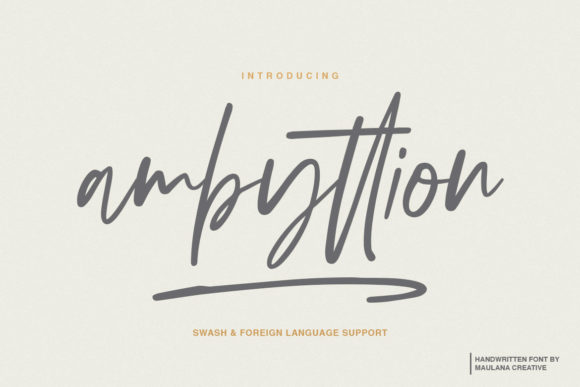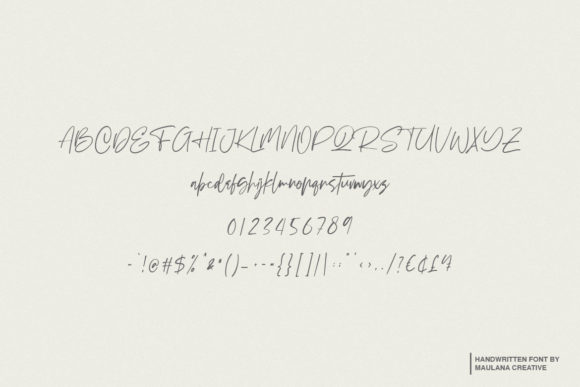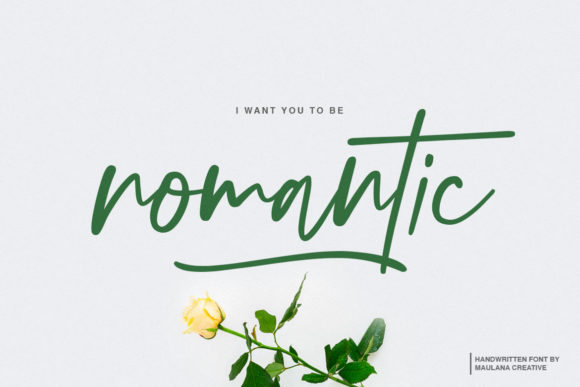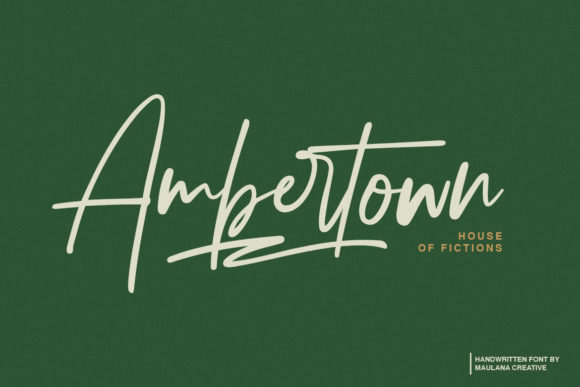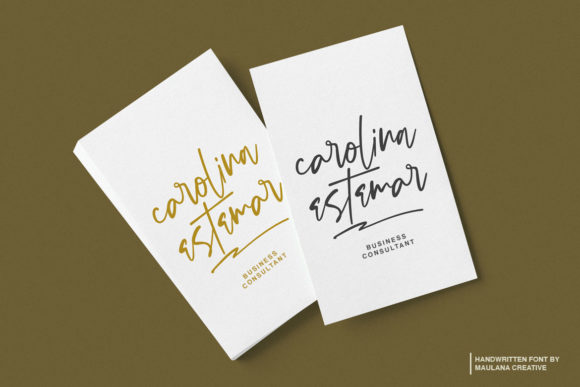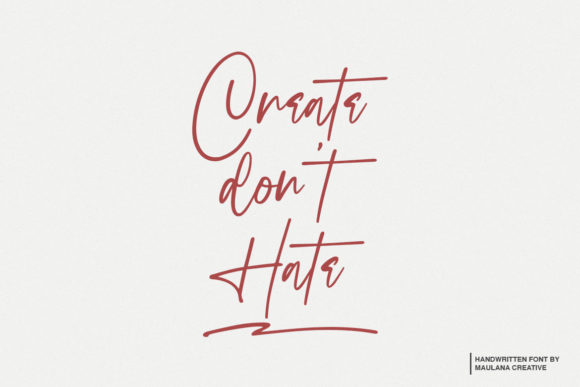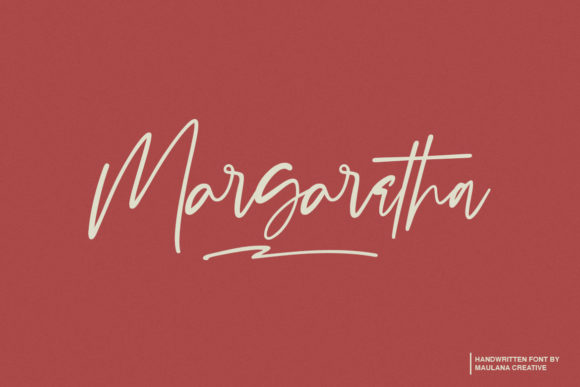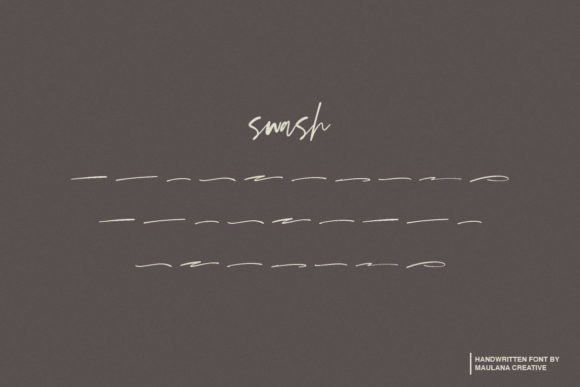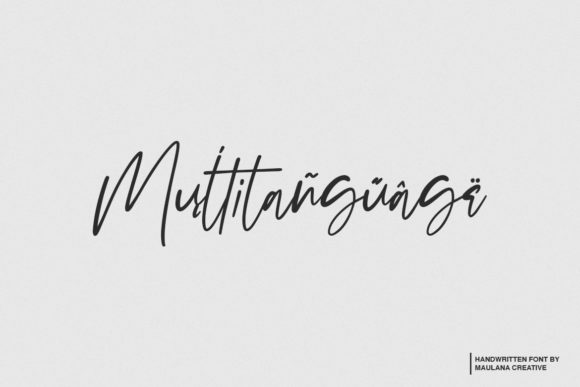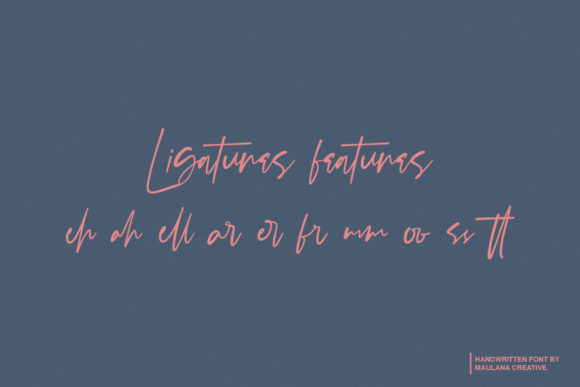
Ambyttion Font
About Ambyttion Font
Ambyttion is a playful and gorgeous script font featuring luscious swashes. Use it to add a romantic touch to all your designs!